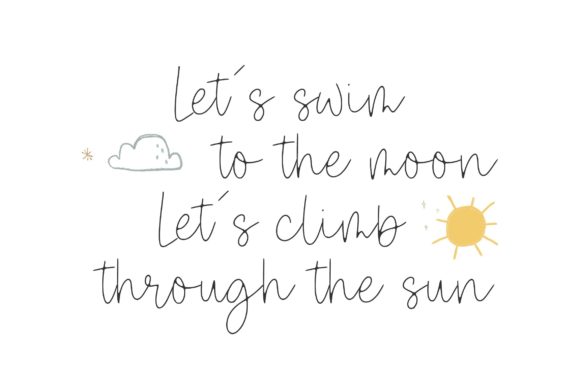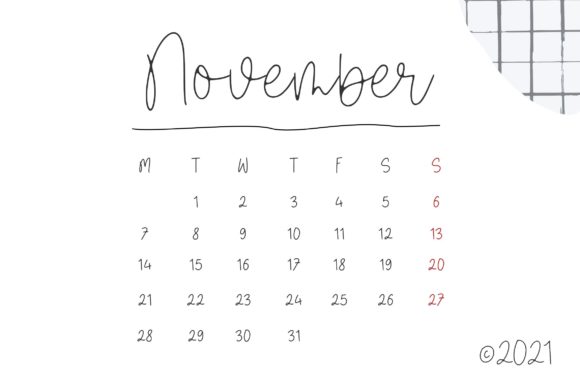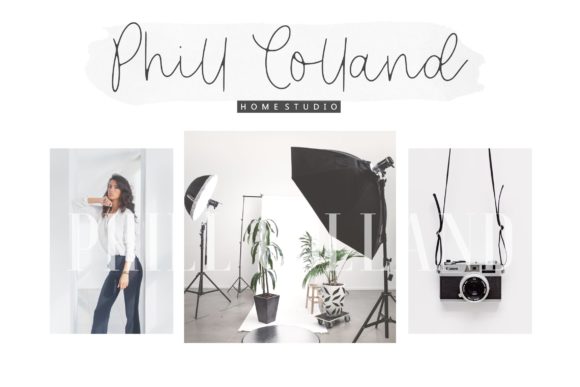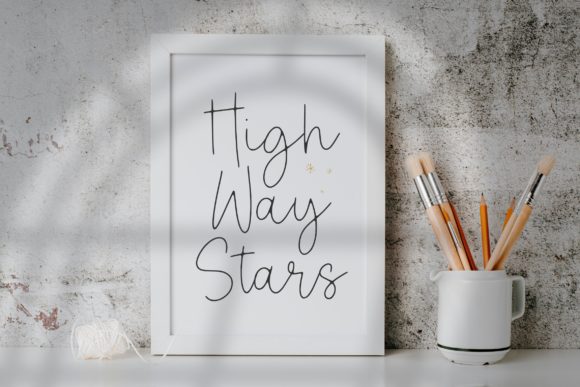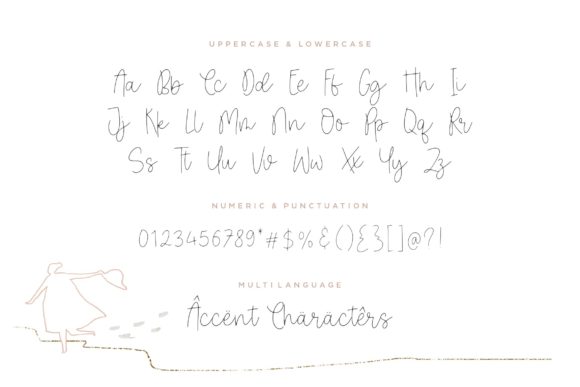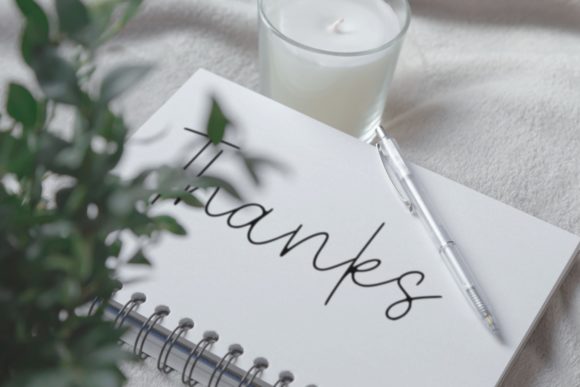
Introduction to Secretsoul Monoline Font
Secretsoul Monoline is a thin lettered, refined script font that emanates sophistication and elegance.
Its stylish alternates and ligatures make this font the perfect match for any project .
Key Features of Secretsoul Monoline Font